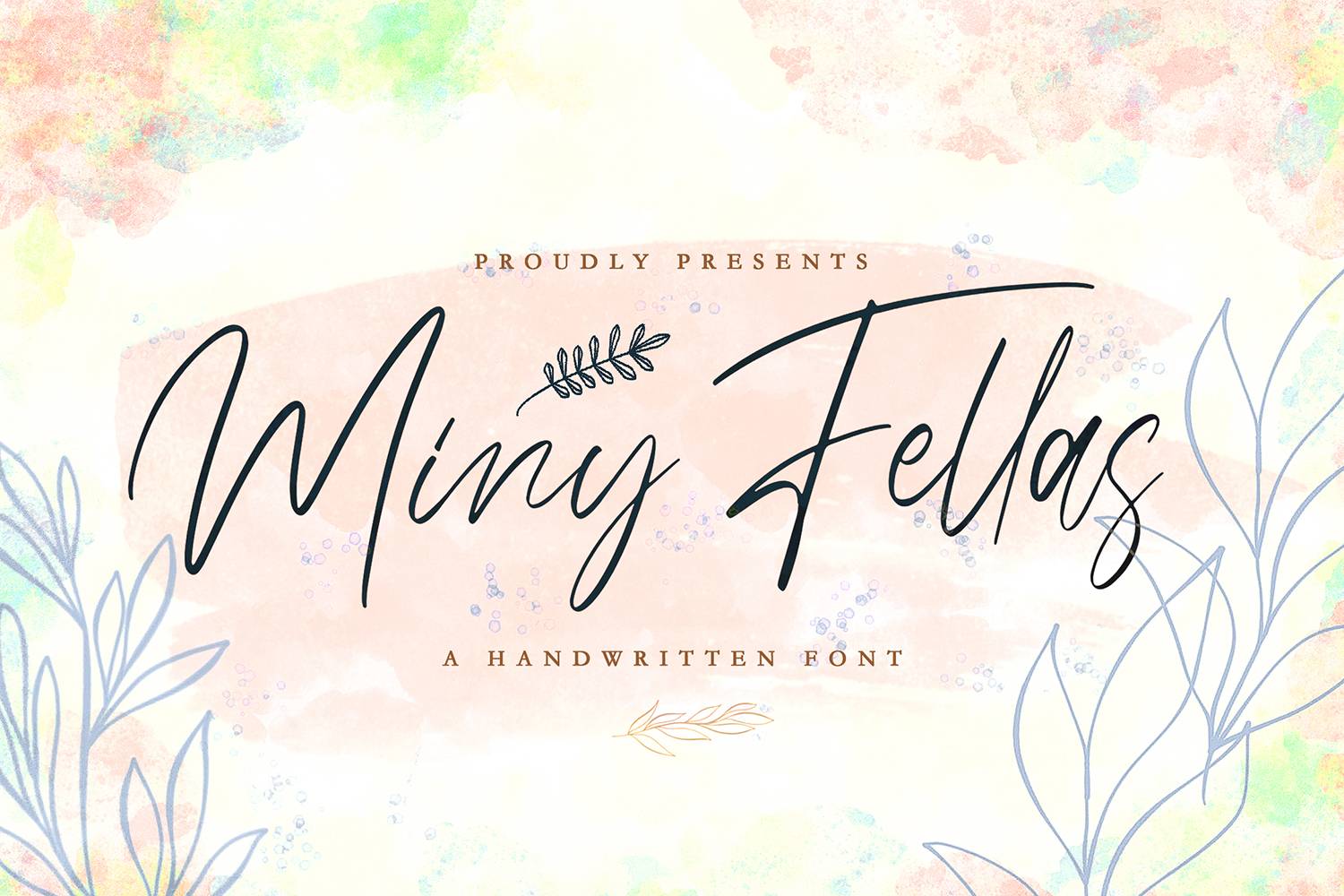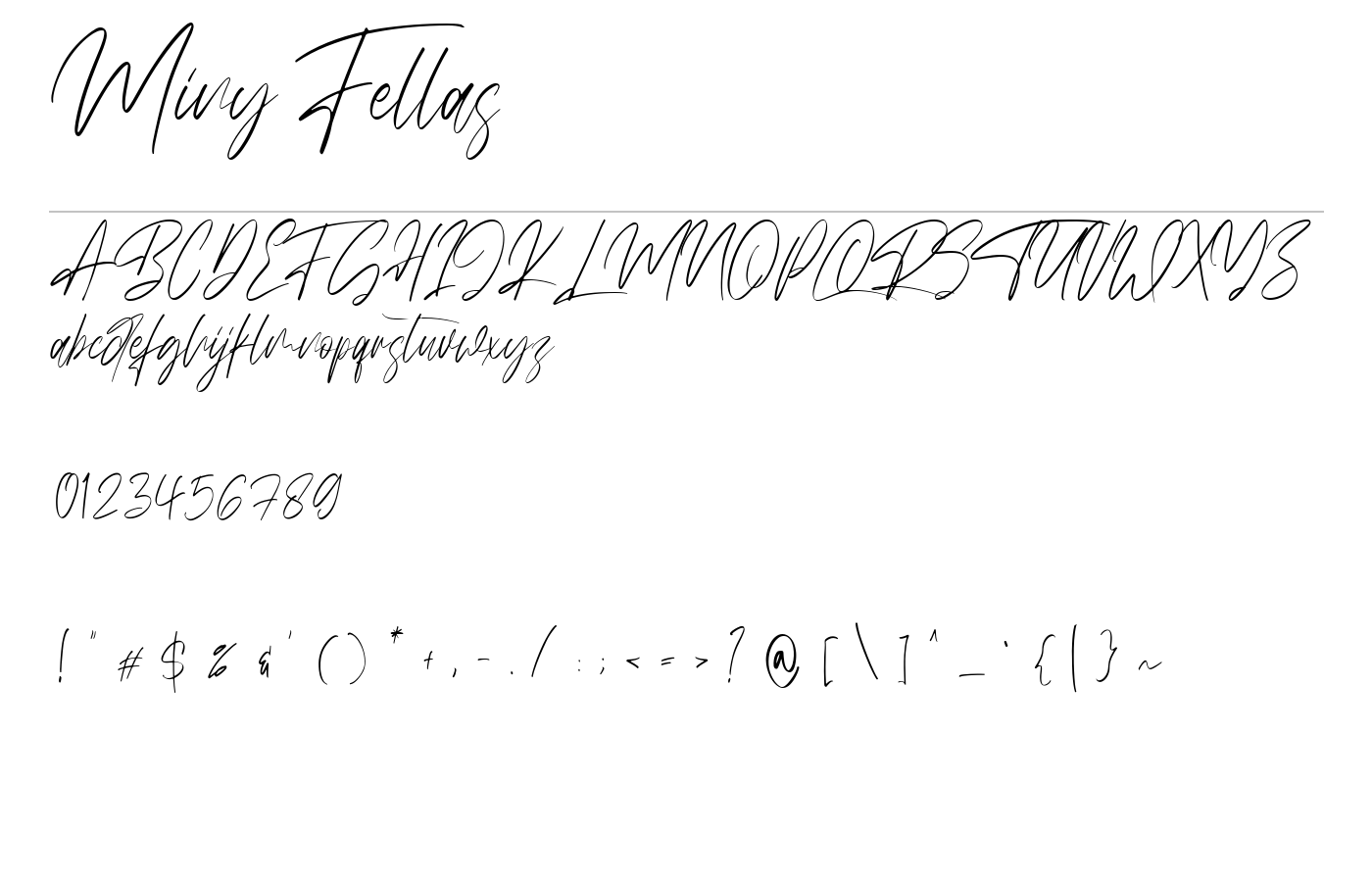
Miny Fellas is a thin, elegant script font with a handwritten and flowing style, featuring tall, slender letterforms and a natural, slightly chaotic stroke that adds personality and charm. Its light weight and airy spacing make it ideal for stylish branding, invitations, and creative projects that seek a personal and sophisticated touch. This font works beautifully in headlines, logos, and decorative text where a modern yet intimate feel is desired.
Miny Fellas Font
About Miny Fellas Font